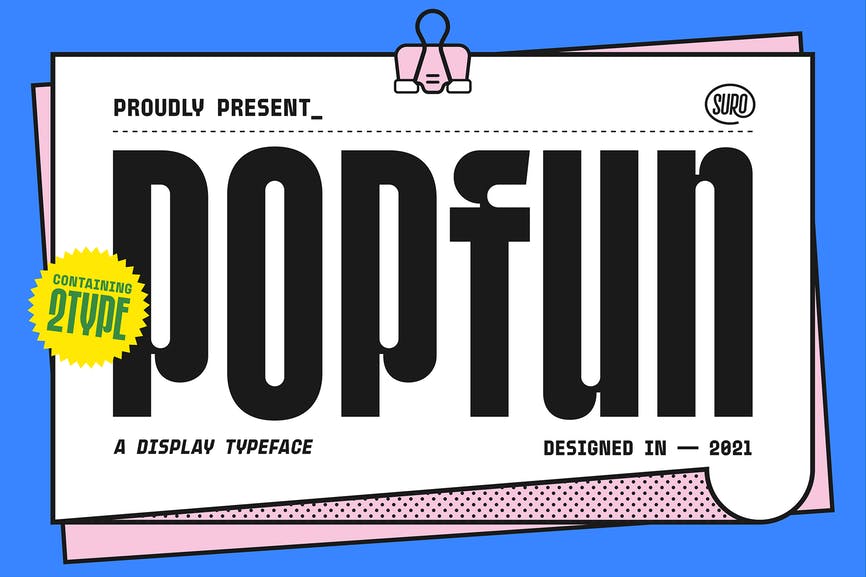
POPFUN is a display typeface with playful taste. It comes in two different styles, Normal and Extrude so you can use them to your heart’s content.
Really playful font pair to make it easier for you creative work such as — branding, film titles, packaging, advertising, posters, and web or app.